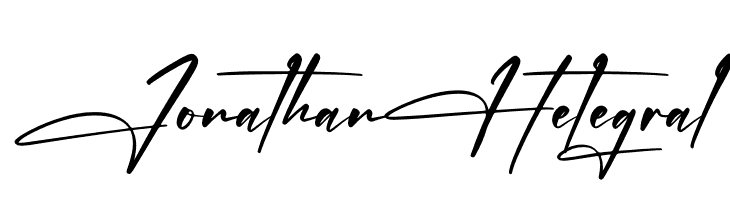
A dynamic, cursive script font with fluid, expressive strokes.
A futuristic and abstract font with geometric shapes and consistent line weight.
An elegant italic font with flowing letterforms and moderate contrast.
A bold, geometric, and condensed font with a futuristic feel.
A bold, italic font with a dynamic shadow effect and angular design.
A playful, bold font with a whimsical and cartoonish design.
A playful, cartoon-like font with quirky, decorative characters.
A bold, geometric font with a three-dimensional, futuristic design.
A bold, shadowed font with a three-dimensional geometric style.